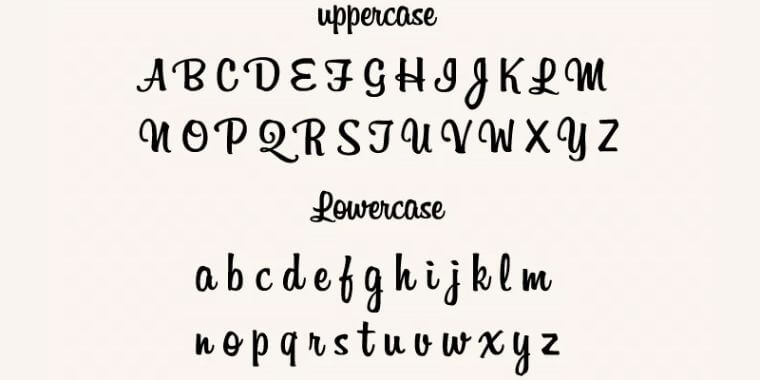
The Instagram font style called Billabong, is a custom-designed typeface created specifically for the Instagram logo and branding. It is a relaxed and playful brush script typeface designed by Russell Bean in 2013.
The unique and friendly shape of the font evokes the visual identity of the platform, adding a touch of creativity and warmth to its branding.